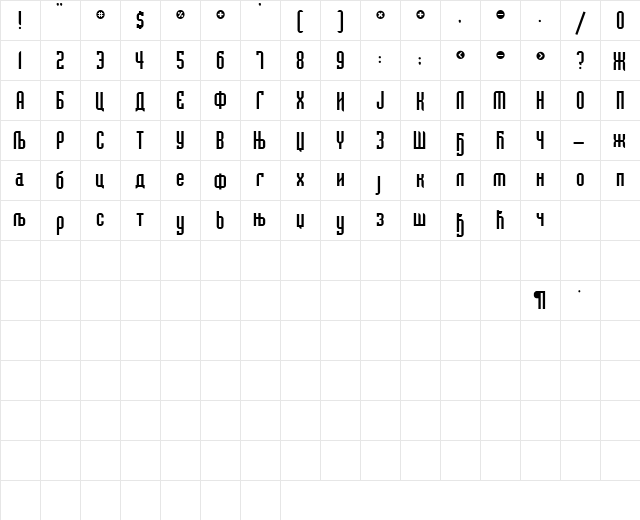
Bedrock Cirilica Regular
Design Context for Bedrock Cirilica Typeface
Bedrock Cirilica is a composed and adaptable typeface that performs quietly and consistently across a wide range of design contexts.